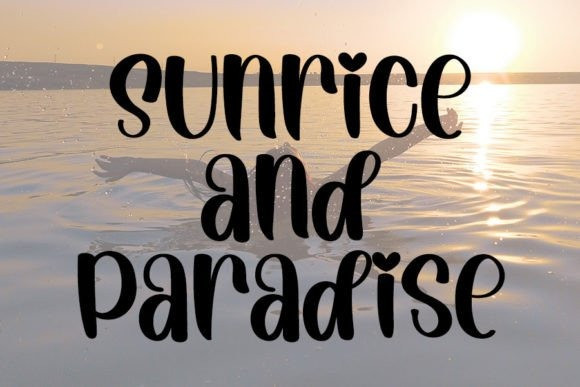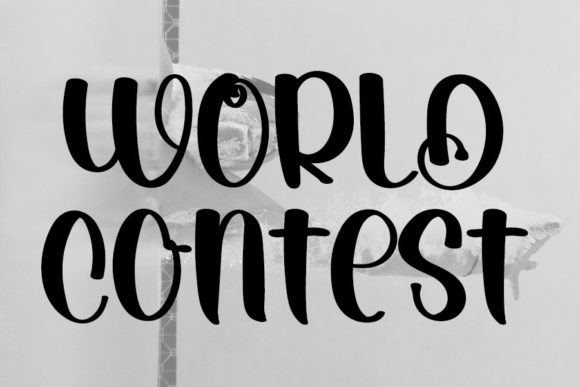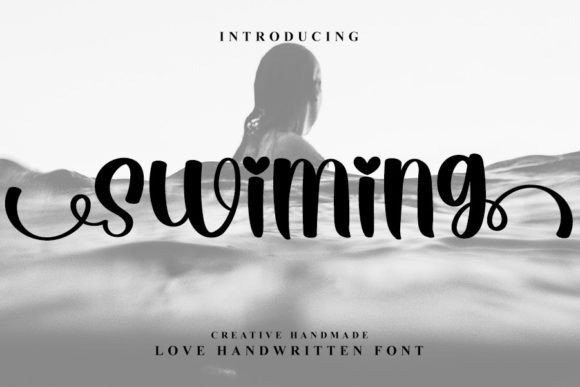
Swiming Script Font
Swiming Script Font is a beautiful and refined script font. It has a classy, elegant, and modern look that can be used for logos, branding, invitations, stationery, wedding designs, social media posts, and much more!